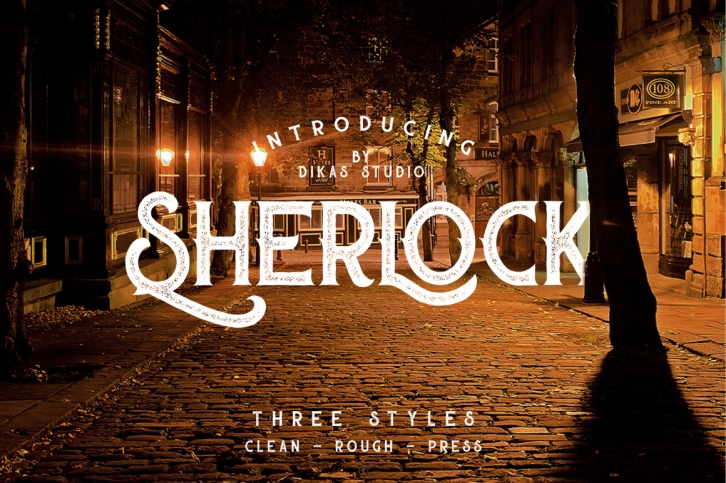
Sherlock Typeface is a beautiful font that was designed by Dikas Studio. It's a great choice for designers and creatives who need such a font. It was released on September 27, 2016 and the file size is 11.55 MB. Sherlock Typeface may give a more youthful, expressive and casual look to your project. It is a very beautiful, refined, elegant, and high-quality font.